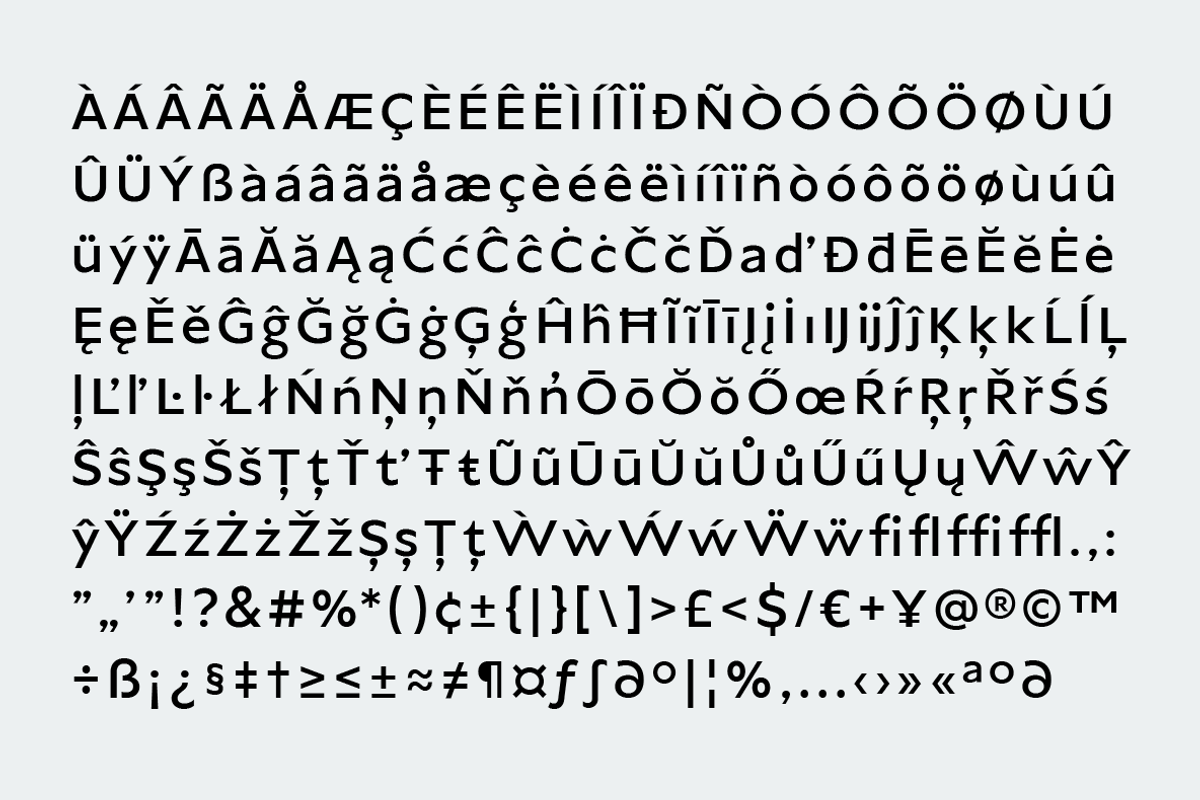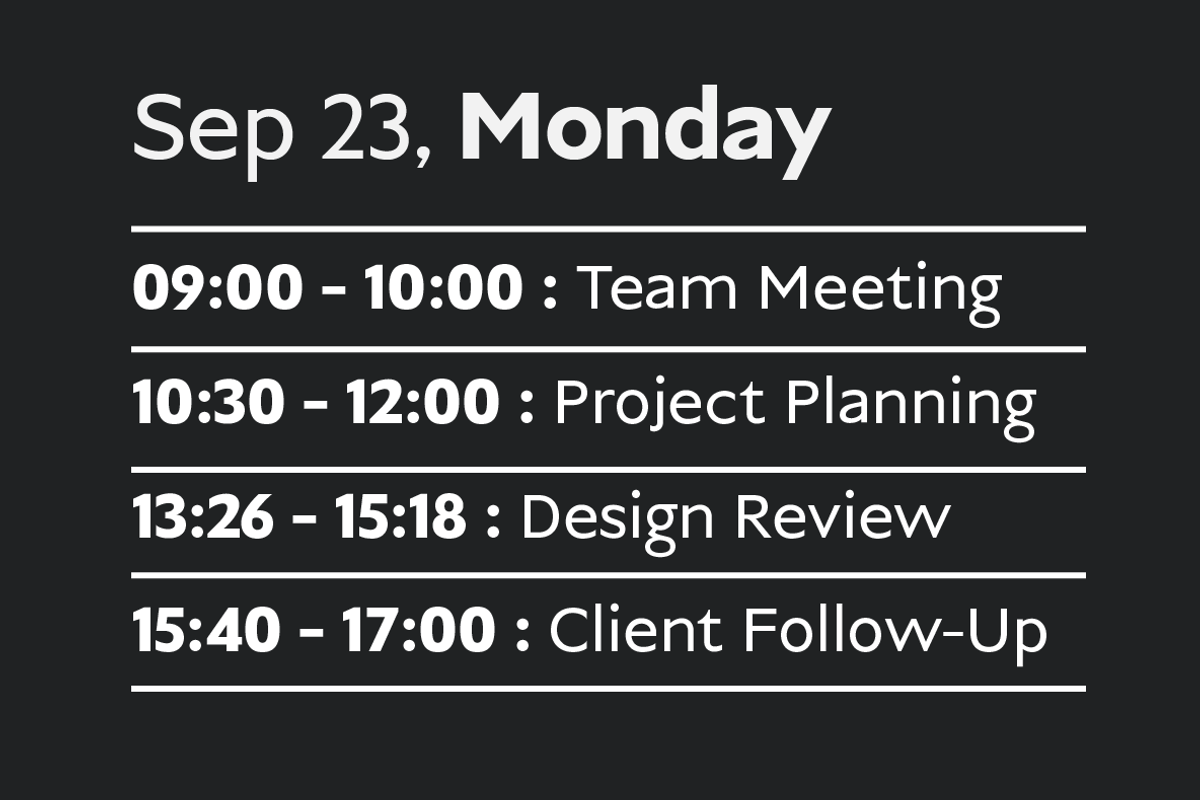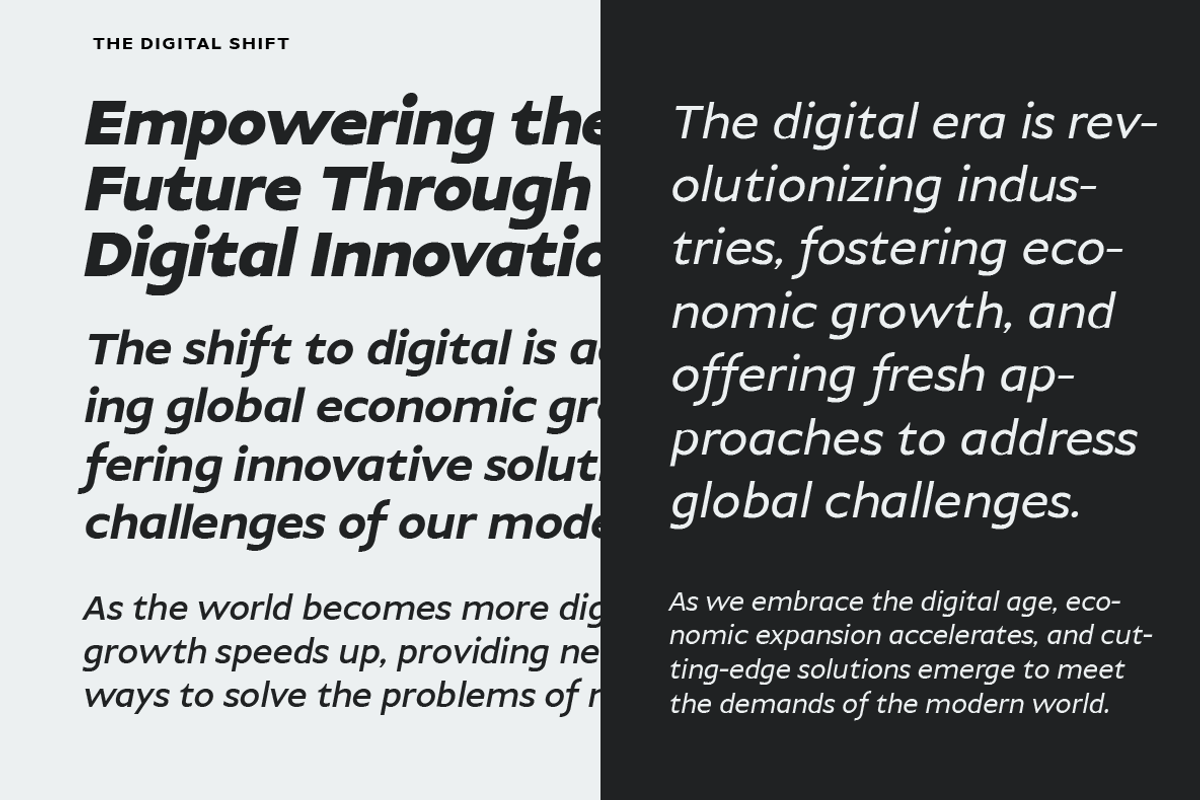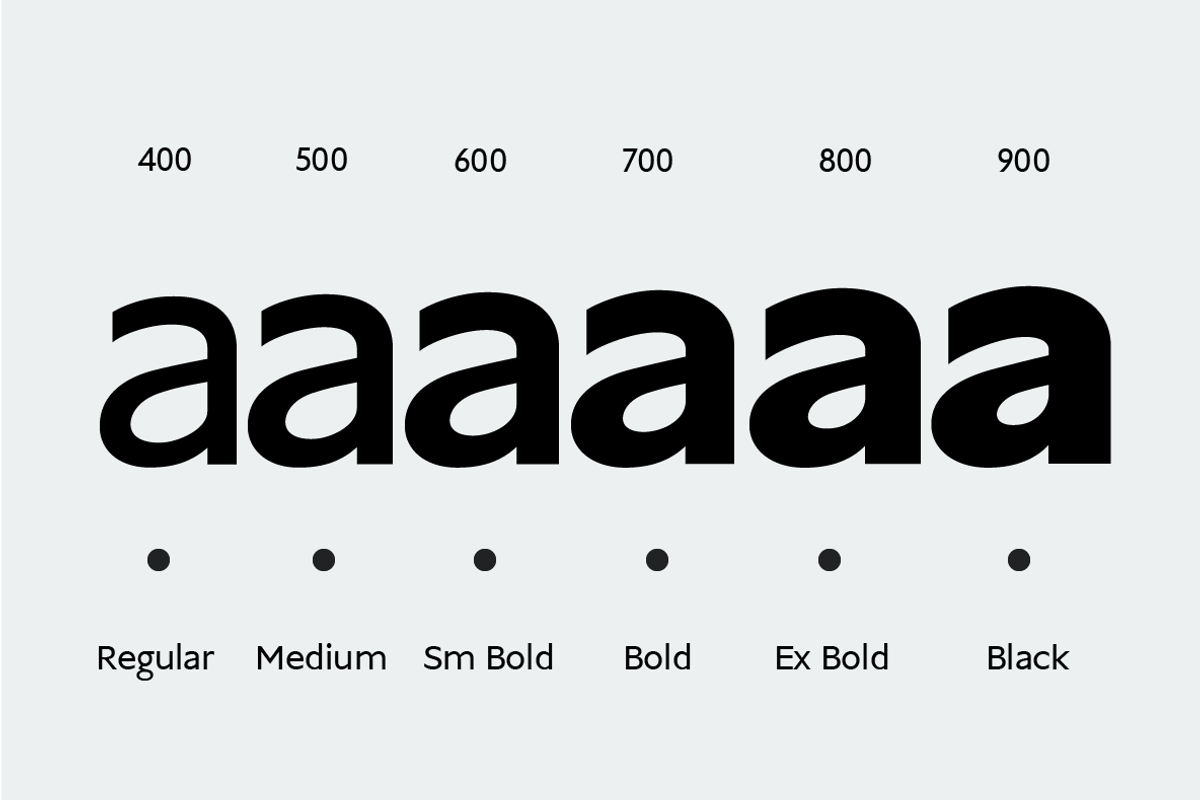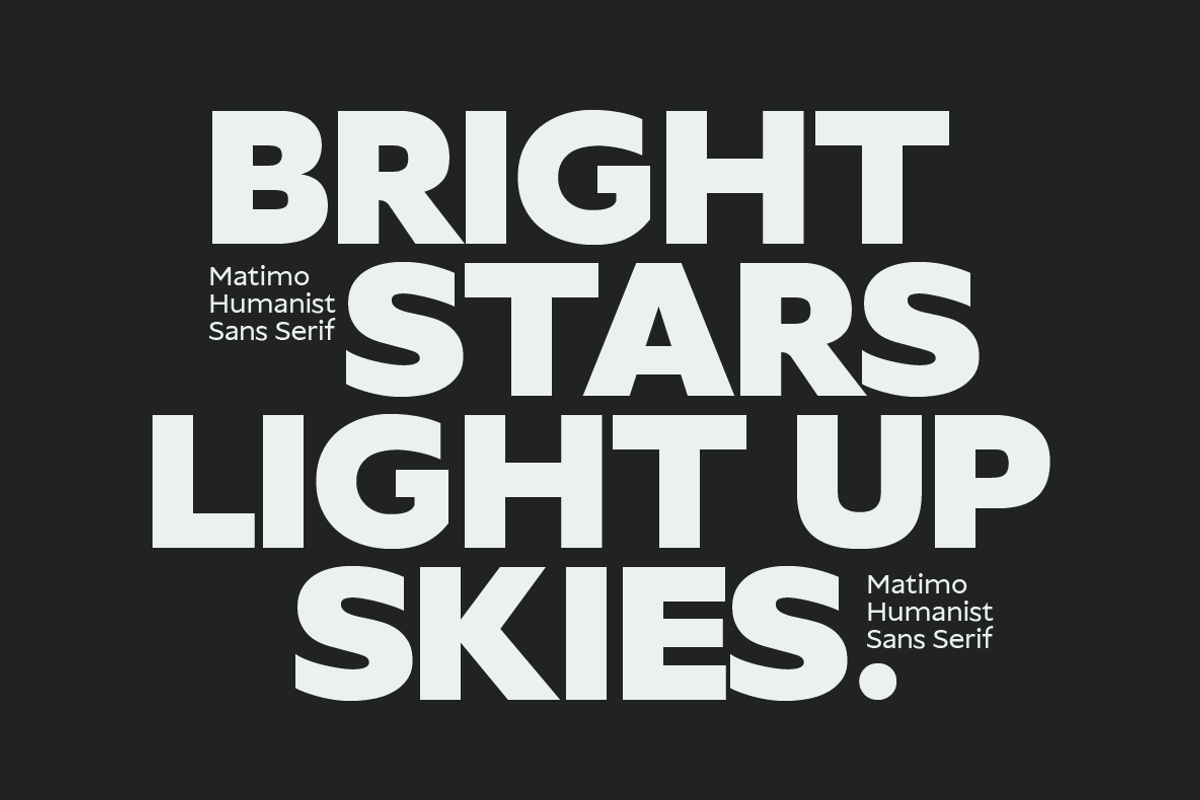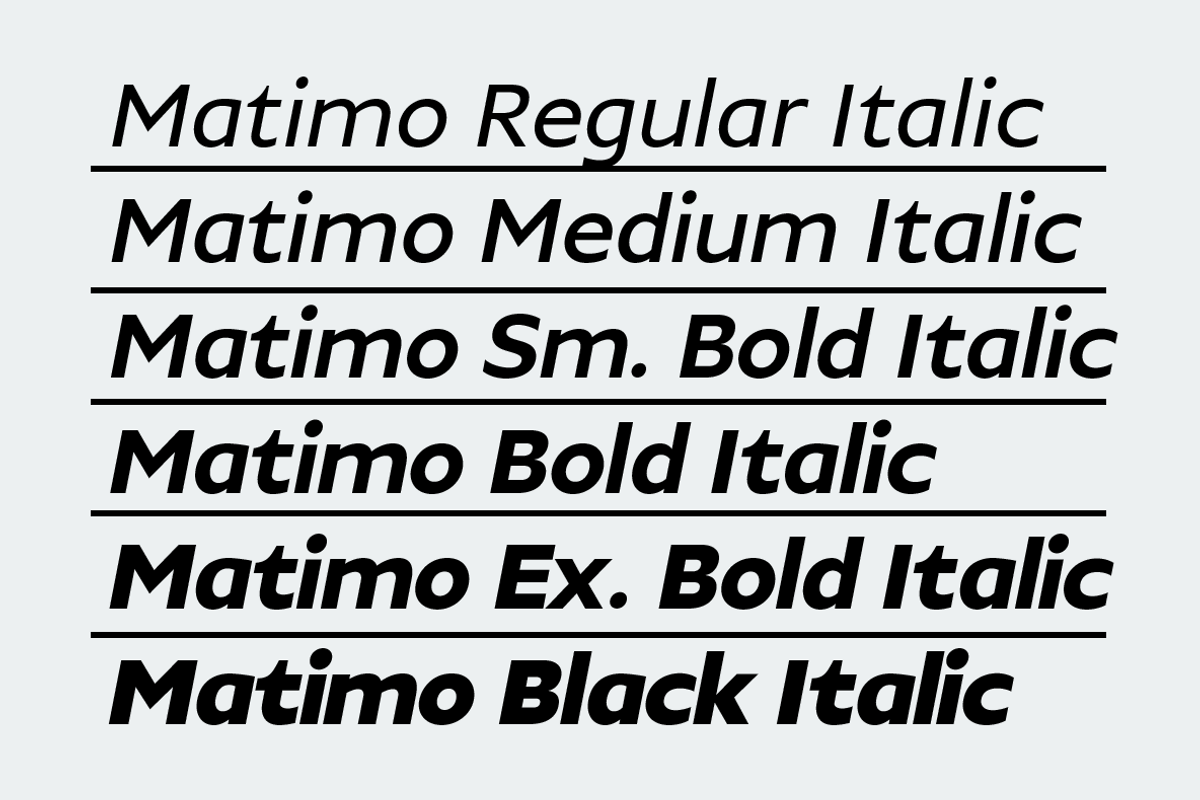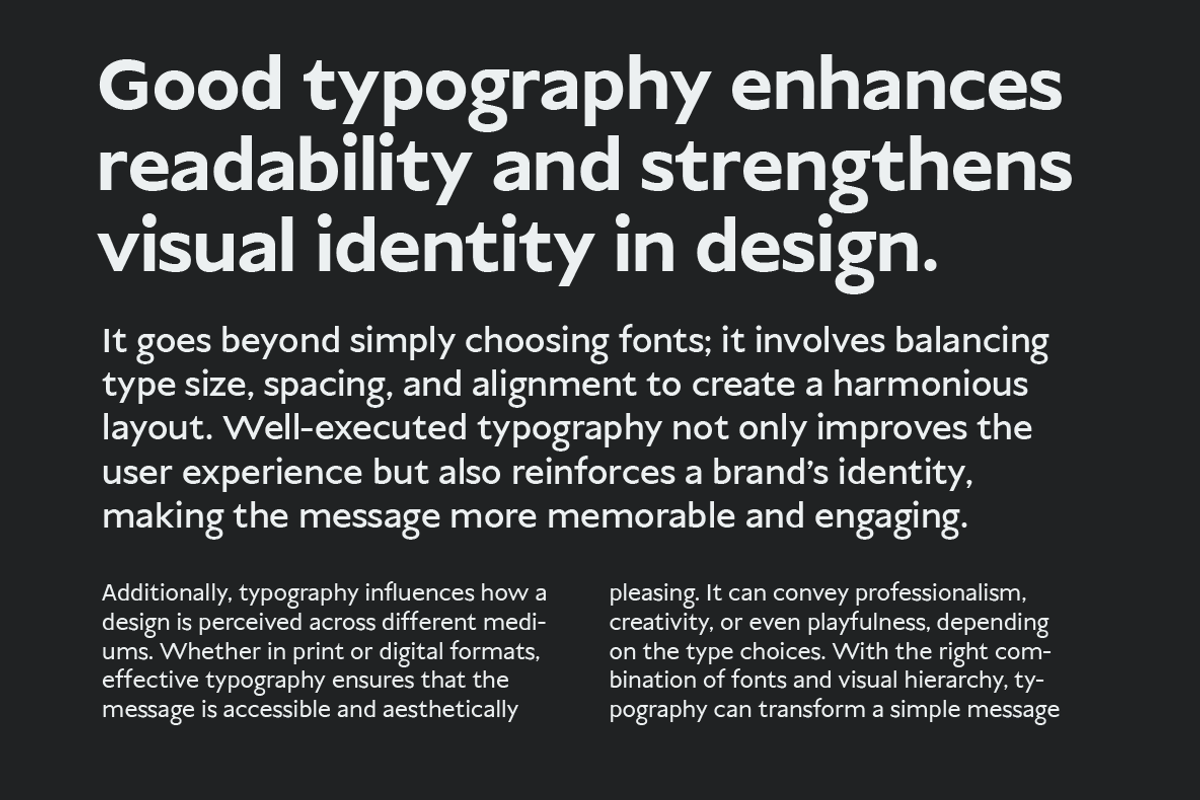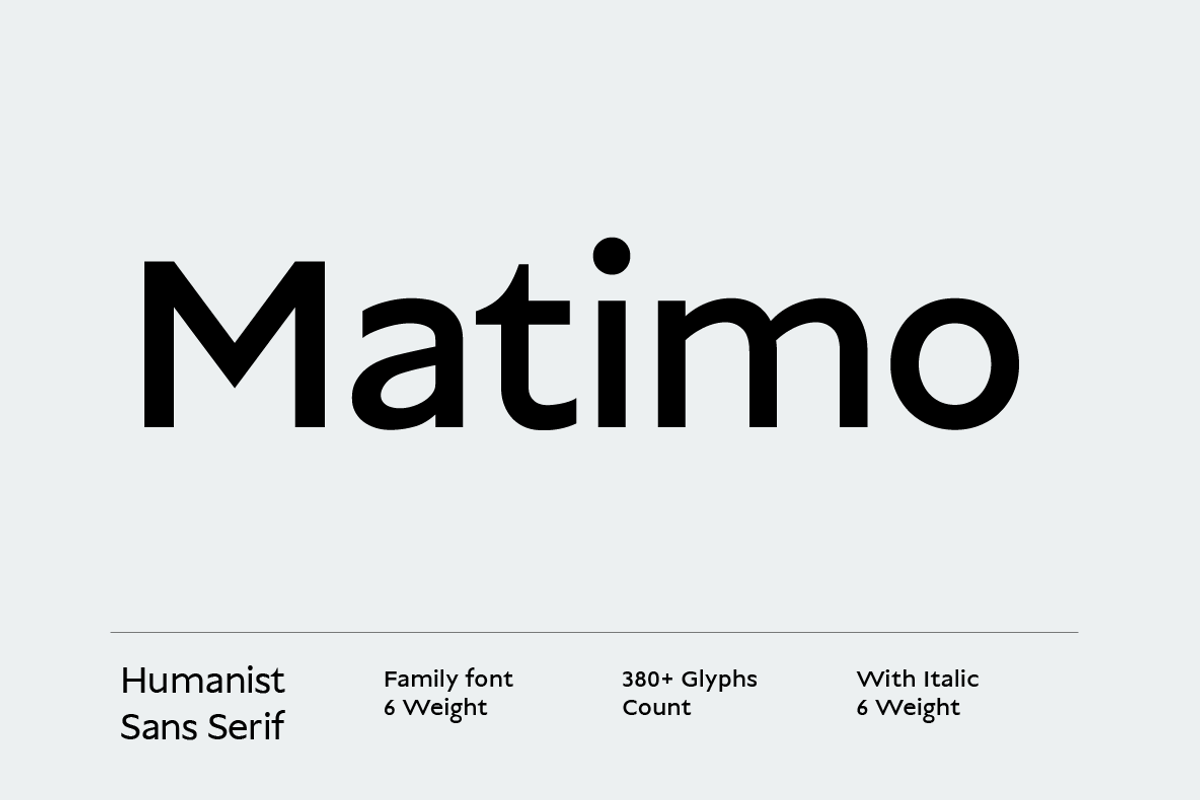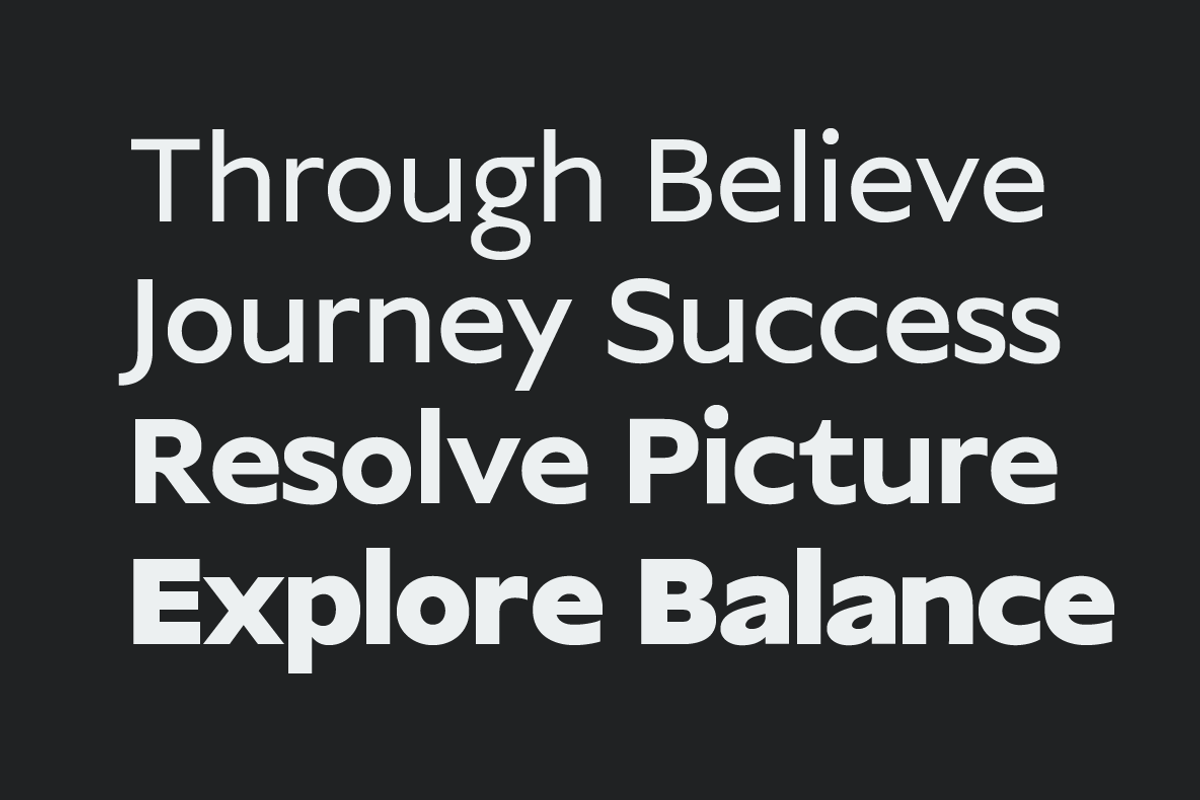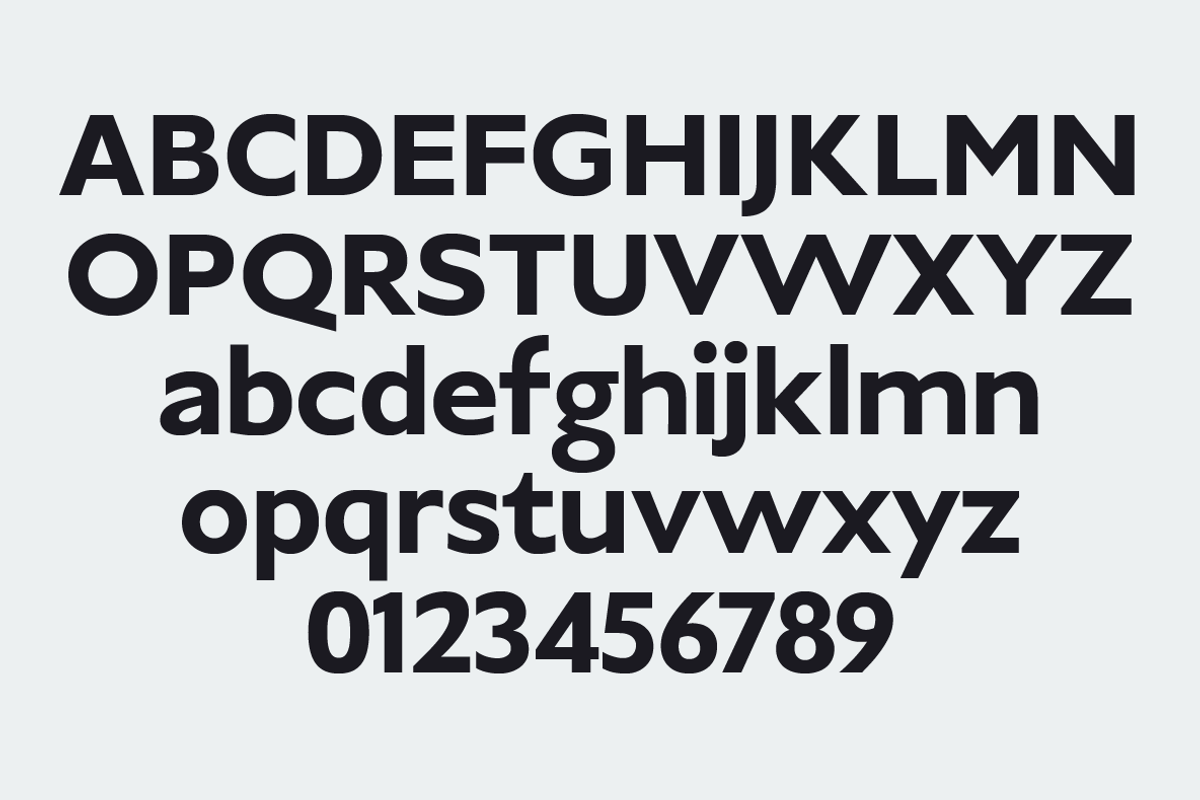
Matimo Humanist Sans Serif
Matimo Humanist Sans Serif Discover Matimo, a humanist sans serif font designed to offer elegance and readability. With a total of 12 styles, including 6 weights: Regular, Medium, Semi Bold, Bold, Extra Bold, and Black, along with 6 italic styles, Matimo is perfect for a variety of design projects, from branding to editorial typography.
- 12 font styles: 6 regular weights and 6 italics
- Humanist design that conveys a modern and professional look
- Versatile for both digital and print applications
- High readability, ideal for long texts and headlines
Advantages:
- Enhances the visual appeal of your projects with a stylish design
- Simplifies the design process with customizable weight variations
- Strengthens your brand identity through consistent typography Get Matimo now and elevate the quality of your designs with stylish and functional typography.